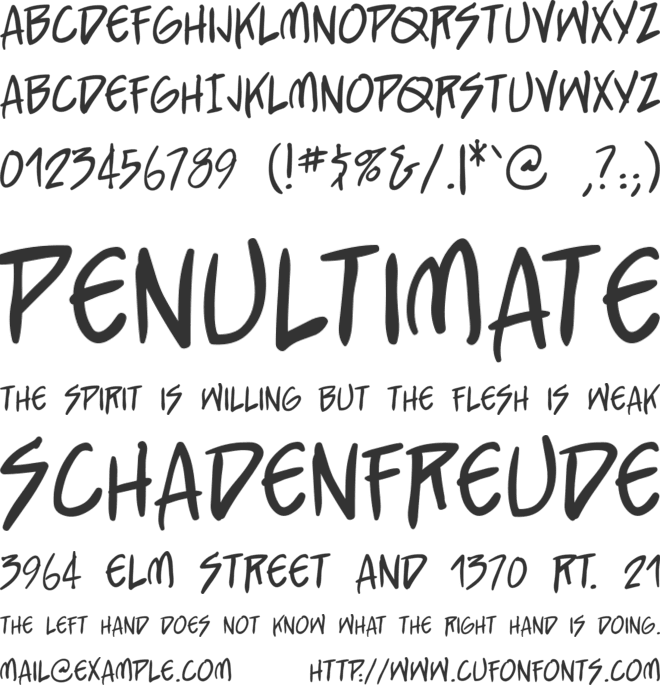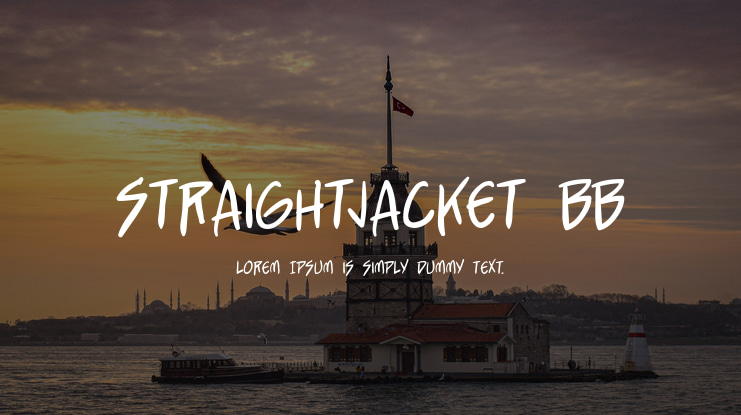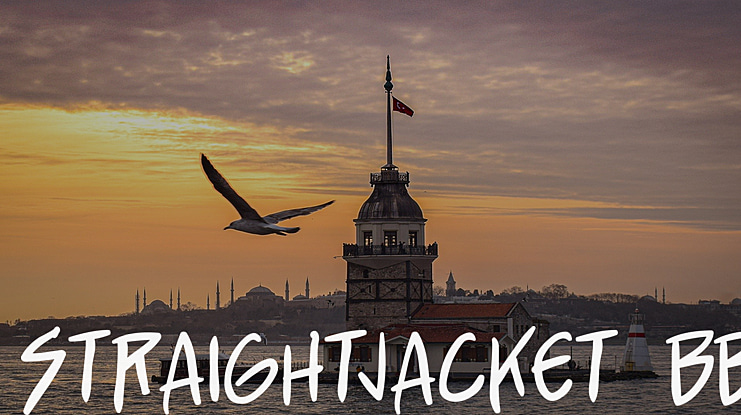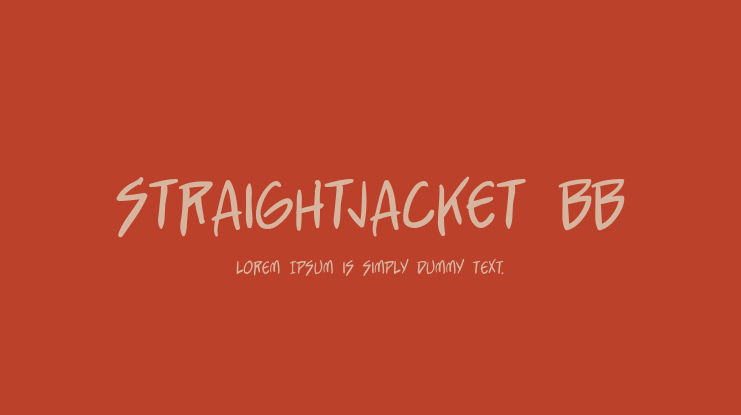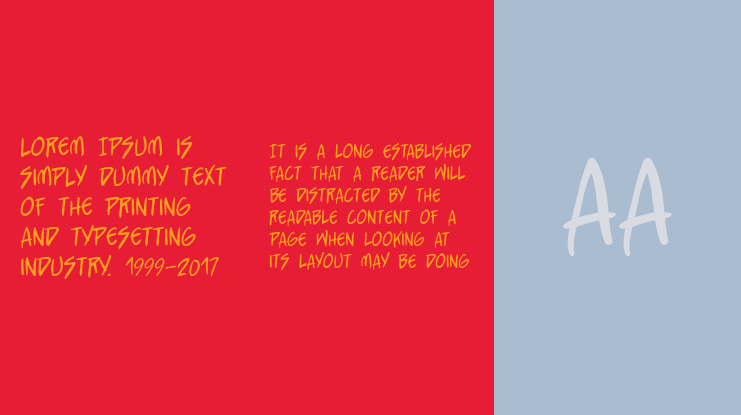
StraightJacket BB Font Family
Nate Piekos
So the inmates at the asylum for the criminally insane are hatching a plan to break out and get revenge on the heroes who put them there – here’s the perfect font for their maniacal rantings! Includes Regular and Bold.